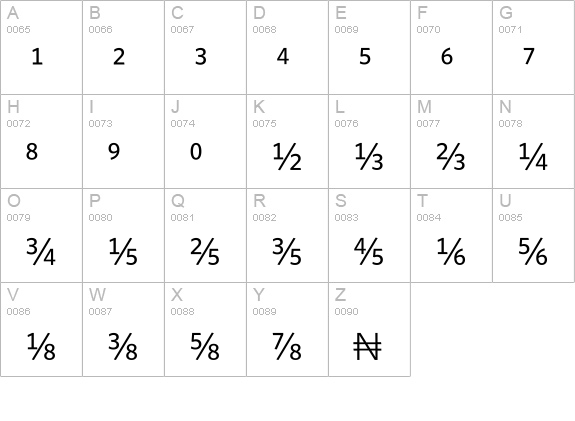
WhitneyNumeric-Book is a comfortable, highly readable variant in the WhitneyNumeric typeface family \xE2\x80\x94 well suited to long-form body text, articles, and editorial content.
WhitneyNumeric-Book is a sleek and modern font that is perfect for all your numeric needs. Its clean lines and sharp edges make it easy to read and highly professional. Whether you are designing a financial report, creating an infographic, or simply organizing data, WhitneyNumeric-Book will provide an elegant and sophisticated touch to your project. One of the best features of WhitneyNumeric-Book is that it is freely available to download at FontsMarket.com. This means that you can enhance your designs without any additional cost. With its wide range of numerals, including regular, proportional, and tabular figures, this font offers versatility and flexibility to suit your specific requirements. The attention to detail in WhitneyNumeric-Book is evident in its precision and clarity. Each numeral is meticulously crafted to ensure legibility and consistency. The balanced weight distribution creates a harmonious and pleasing visual experience, making it a reliable choice for any design project. Furthermore, WhitneyNumeric-Book is compatible with various design software, allowing you to seamlessly integrate it into your workflow. Whether you are working on a print or digital project, this font will maintain its quality and readability across different platforms. In conclusion, WhitneyNumeric-Book is a free font that combines functionality and aesthetics effortlessly. Its clean design, extensive numeral options, and compatibility with various design software make it a valuable asset for designers and creatives alike. Don't miss the opportunity to enhance your projects with this exceptional font, available for free download at FontsMarket.com.